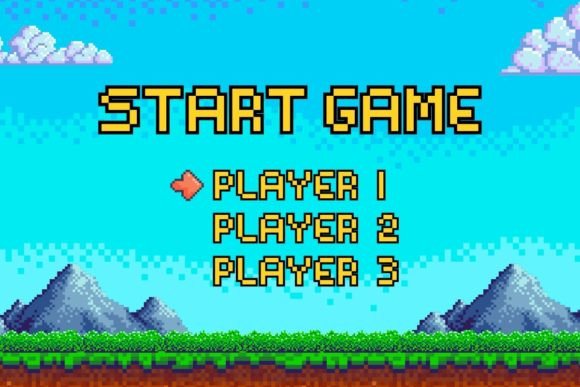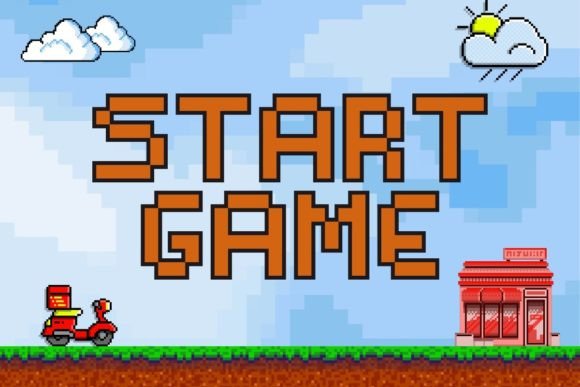
Pixel Wonder Font
Introducing Pixel Wonder, an energetic display font that catapults your designs into a thriving universe of innovation and exhilaration. Crafted with bold, dynamic characters and a daring demeanor, Pixel Wonder encapsulates the very soul of whimsicality. This font is a perfect match for those projects craving a distinctive and vivacious style. Featuring an imaginative flair, Minecroft infuses a delightful and inventive spark into your creative journey.